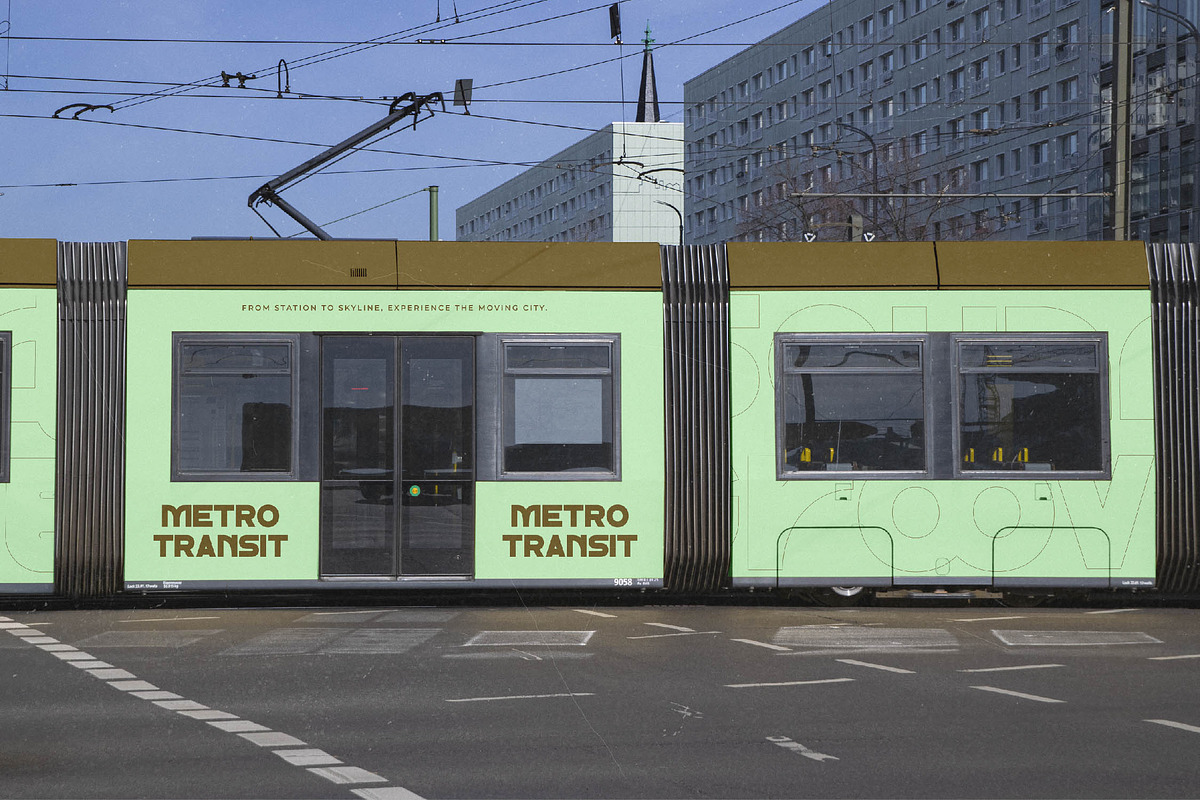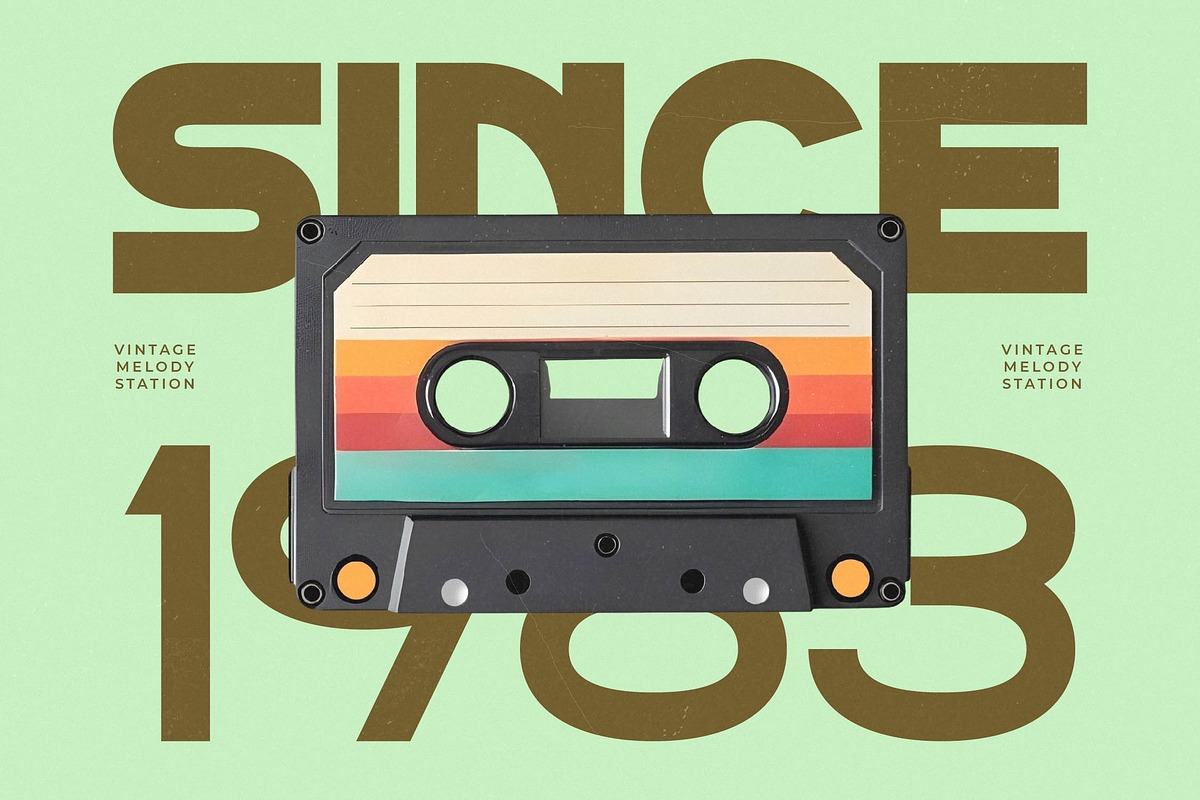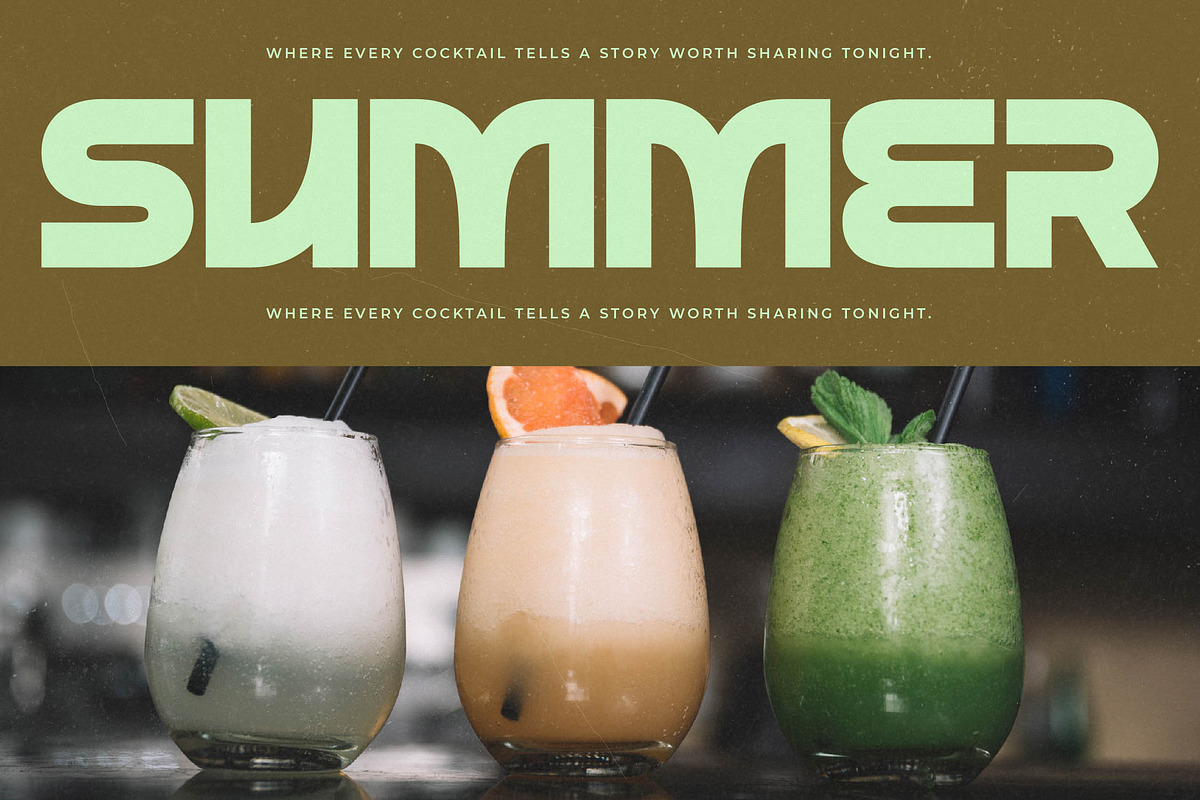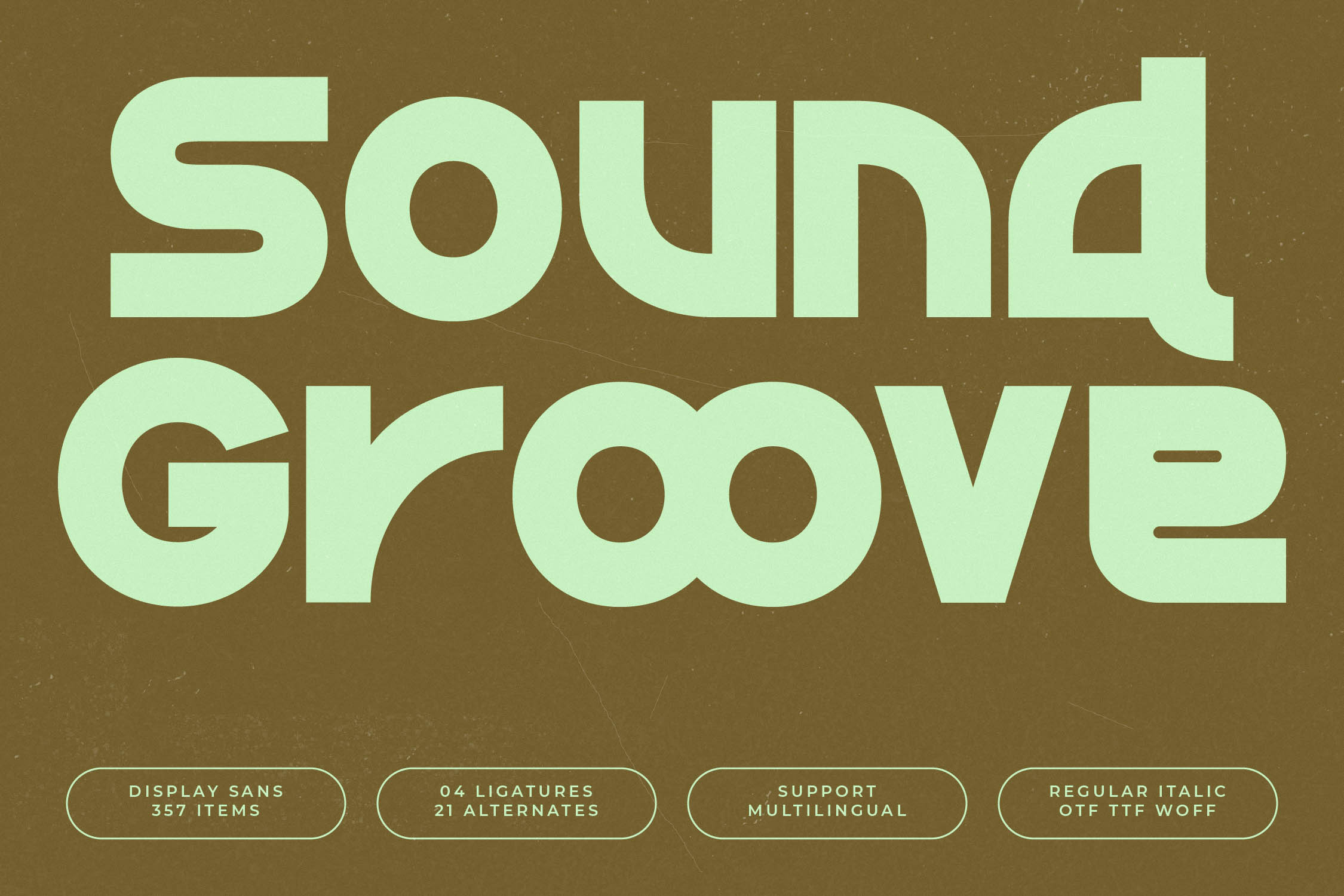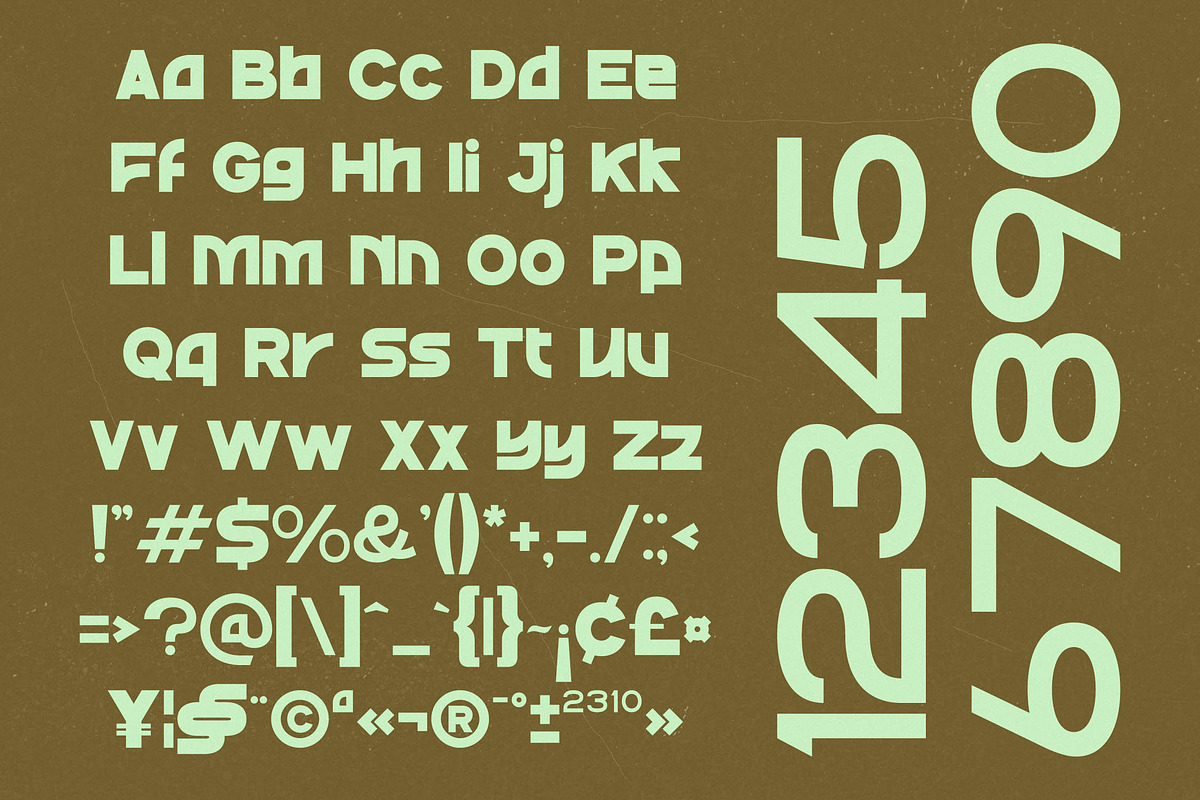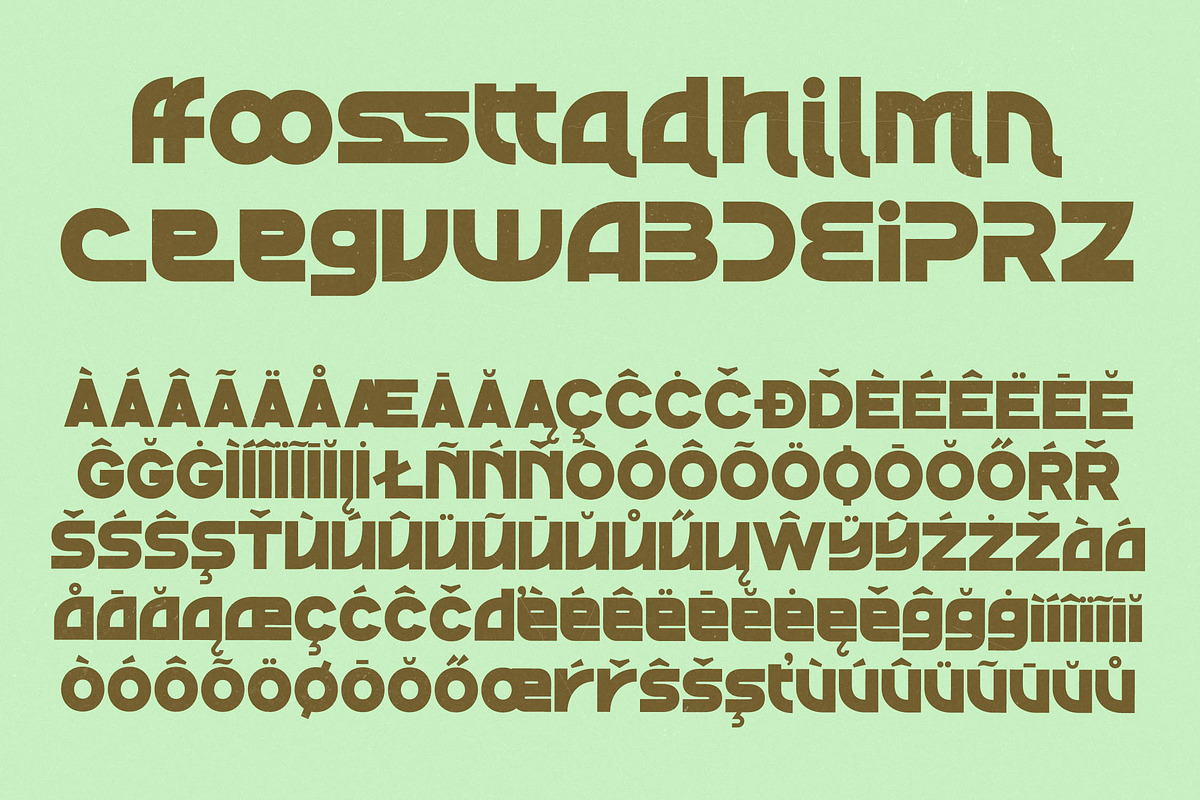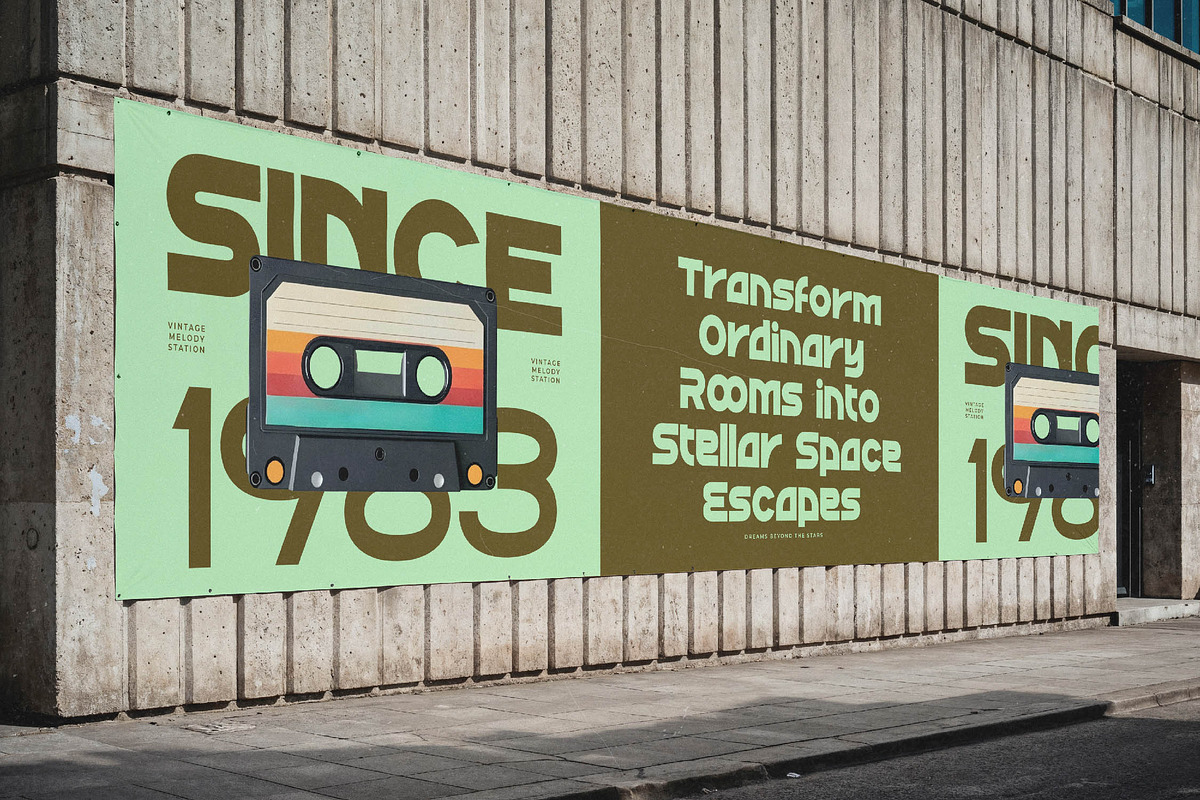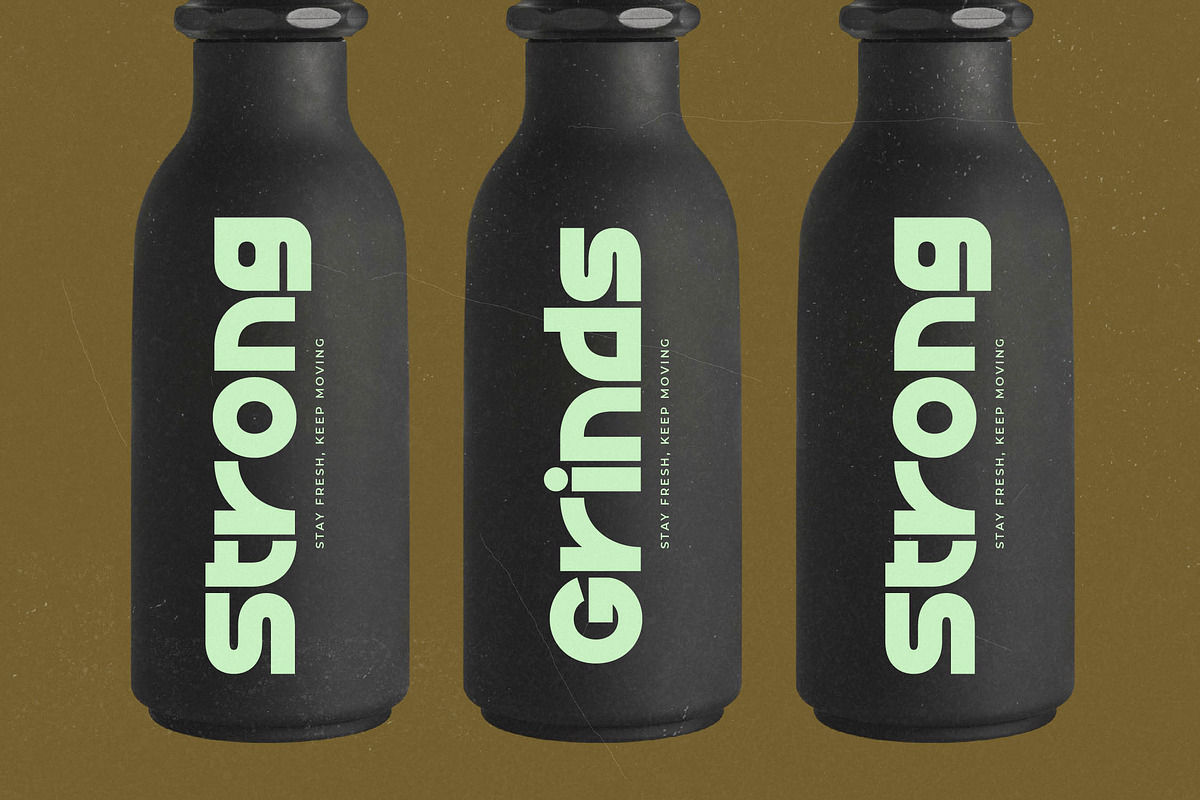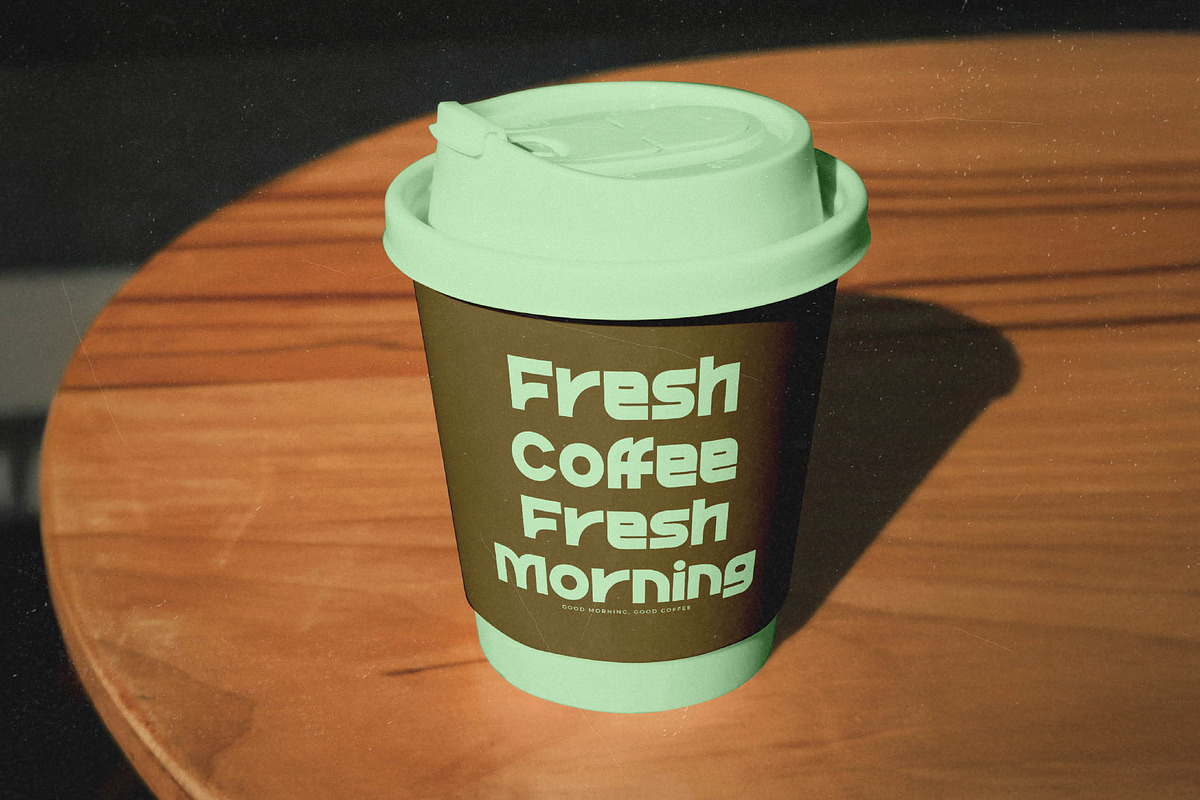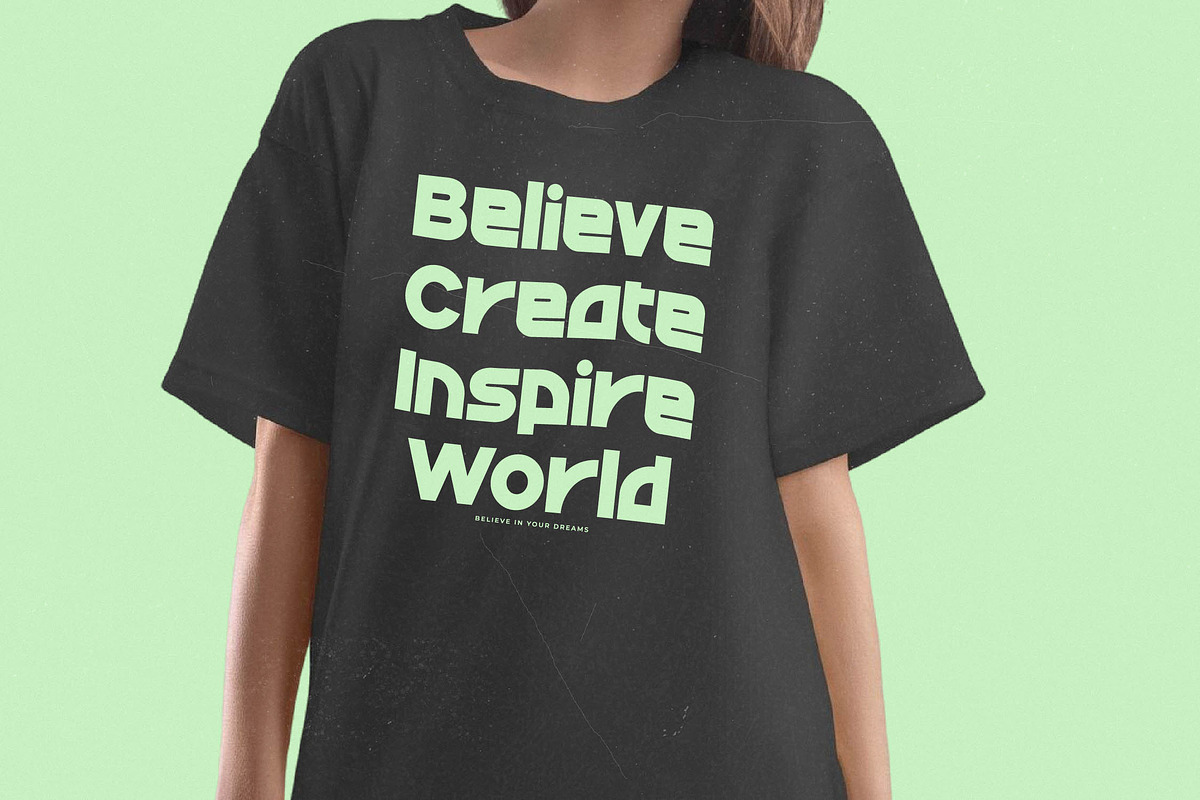
Sound Groove Retro Display Font
Experience the rhythmic pulse of typography with Sound Groove, a font designed to make your headlines sing with personality and vibrance. This typeface is a celebration of bold forms and fluid connections that capture the essence of a modern visual masterpiece.
Inspired by the soul of retro vinyl covers and the golden era of groove, this font merges nostalgia with a clean, contemporary edge. It evokes a sense of movement and rhythm, making it perfect for projects that need to stand out with a distinct, soulful atmosphere.
As a powerful modern serif display choice, it offers a level of luxury typography that commands attention while maintaining a sophisticated high-contrast serif feel. This is the ultimate editorial font for creators seeking maximum branding impact in a crowded digital landscape.
Tapping into the current modern serif trend, this typeface is an essential addition to any designer's toolkit who values editorial display fonts. It represents the pinnacle of character-driven typography, blending aesthetic beauty with functional readability for the trend-conscious market.
From high-end logo design and comprehensive branding systems to immersive editorial layouts, this font excels in every creative environment. It is equally at home in luxury packaging, elegant wedding invitations, or cutting-edge fashion lookbooks.
Each download includes a wealth of creative options including specialized ligatures and unique alternates that allow for custom letter combinations. With full multilingual support and a wide range of international characters, your designs will resonate globally with ease and extra swashes of style.